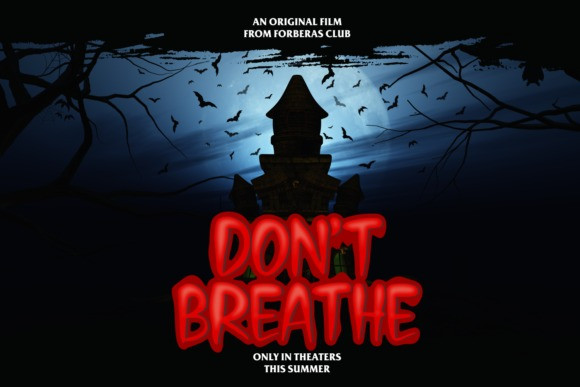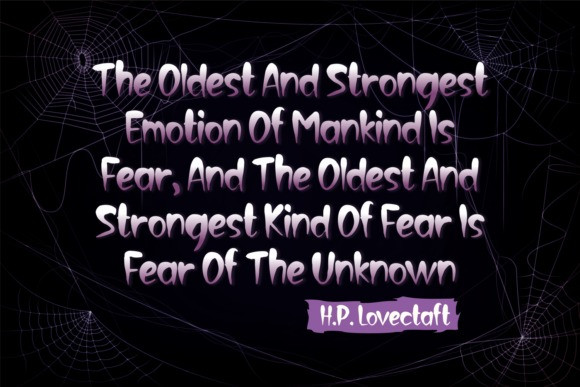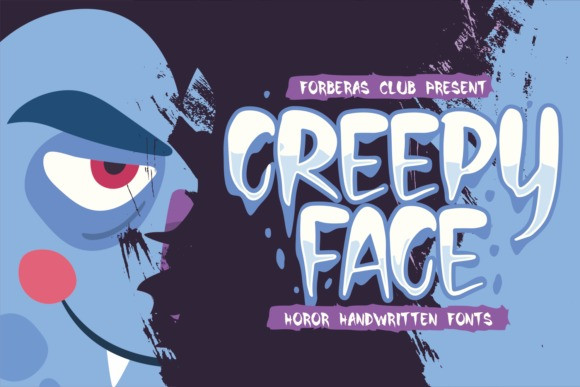
Creepy Face Display Font
Creepy Face is a cool, spooky and fun display font. It can easily be added to your Halloween designs or October parties. The only limit is your imagination!